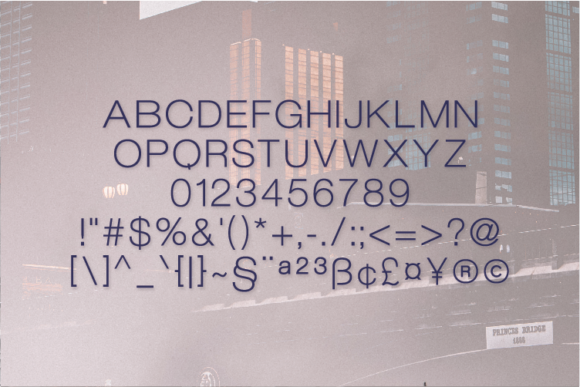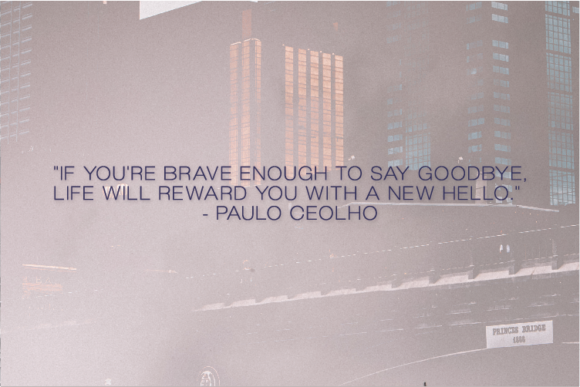
Introducing Dominicle Font: The Ultimate Minimal Sans Serif for Your Creative Projects
Are you a designer, crafty enthusiast, or someone who loves to create unique and visually appealing content? Look no further! We’re excited to introduce you to Dominicle Font, a stunning minimal sans serif font that’s designed to elevate every project you wish to create. Whether you’re working on displays, headers, invitations, save the dates, weddings, or any other creative endeavor, Dominicle Font is the perfect companion to bring your vision to life.
What Makes Dominicle Font Special?
Dominicle Font boasts a clean and minimalist design that exudes elegance and sophistication. Its sans serif style ensures that your text remains clear and readable, even at smaller font sizes, making it incredibly versatile for various applications. Here are some key features that make Dominicle Font stand out:
- Minimalist Design: The font’s minimalist approach ensures that your designs look sleek and modern, perfect for those who appreciate simplicity and elegance.
- High Versatility: Dominicle Font can be used across a wide range of projects, from digital displays and headers to print materials like invitations and wedding cards.
- Excellent Readability: The clear and simple letterforms guarantee that your text is easy to read, making it suitable for both headings and body text.
- Unique Character: Despite its minimalist nature, Dominicle Font has a unique character that sets it apart from more generic sans serif fonts, giving your designs a distinctive look.
Perfect for Various Creative Projects
Dominicle Font’s flexibility makes it an excellent choice for a multitude of creative projects. Here are some of the areas where it truly shines:
- Displays and Headers: Add a touch of sophistication to your website headers, banners, or display texts with Dominicle Font’s clean and modern look.
- Invitations and Save the Dates: Create beautiful and elegant invitations for parties, events, or special occasions that leave a lasting impression.
- Weddings and Events: Elevate your wedding stationery, programs, or event branding with a font that exudes class and refinement.
- Digital and Print Media: Use Dominicle Font in your brochures, posters, flyers, or digital newsletters to give them a professional and contemporary feel.
Why Choose Dominicle Font?
In a world where fonts are plentiful and choices are endless, why should you choose Dominicle Font for your projects? Here are a few compelling reasons:
- Unique Designs: By using a distinctive font like Dominicle, you can create designs that stand out from the crowd, capturing the attention of your audience and setting your work apart.
- Share Your Work: Once you’re happy with your design, share it with your audience, whether that’s through digital channels or print.
Dominicle Font is more than just a typeface; it’s a tool to help you bring your creative visions to life with elegance and simplicity. Its versatility, readability, and unique character make it an invaluable asset for designers, crafters, and anyone looking to add a professional touch to their projects. So why wait? Explore the possibilities with Dominicle Font today and discover how it can elevate your creative work to new heights.